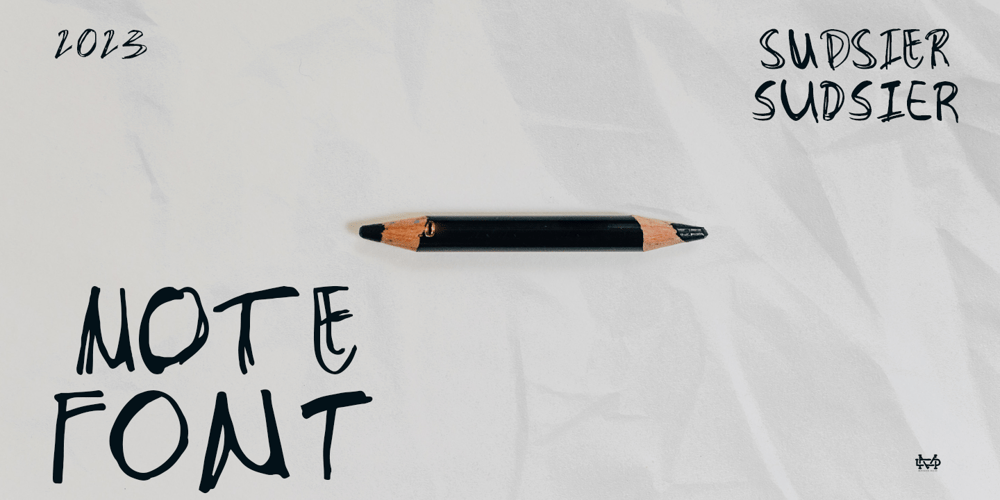
Sudsier AT
Sudsier AT font
Sudsier AT Font Family was designed by madededuk and published by madeDeduk. Sudsier AT contains 2 styles and family package options. Sudsier is a note hand drawn font contains 50+ ligatures and comes with two alternative font. Sudsier is great for branding, posters, logos, invitation, writing and headings.Feature Uppercase & Lowercase Number & Symbol International Glyphs Multilingual support Alternative Ligature Thanks so much for checking out my shop and feel free to drop us a message any time and follow my shop for upcoming updatesHope you enjoy it.